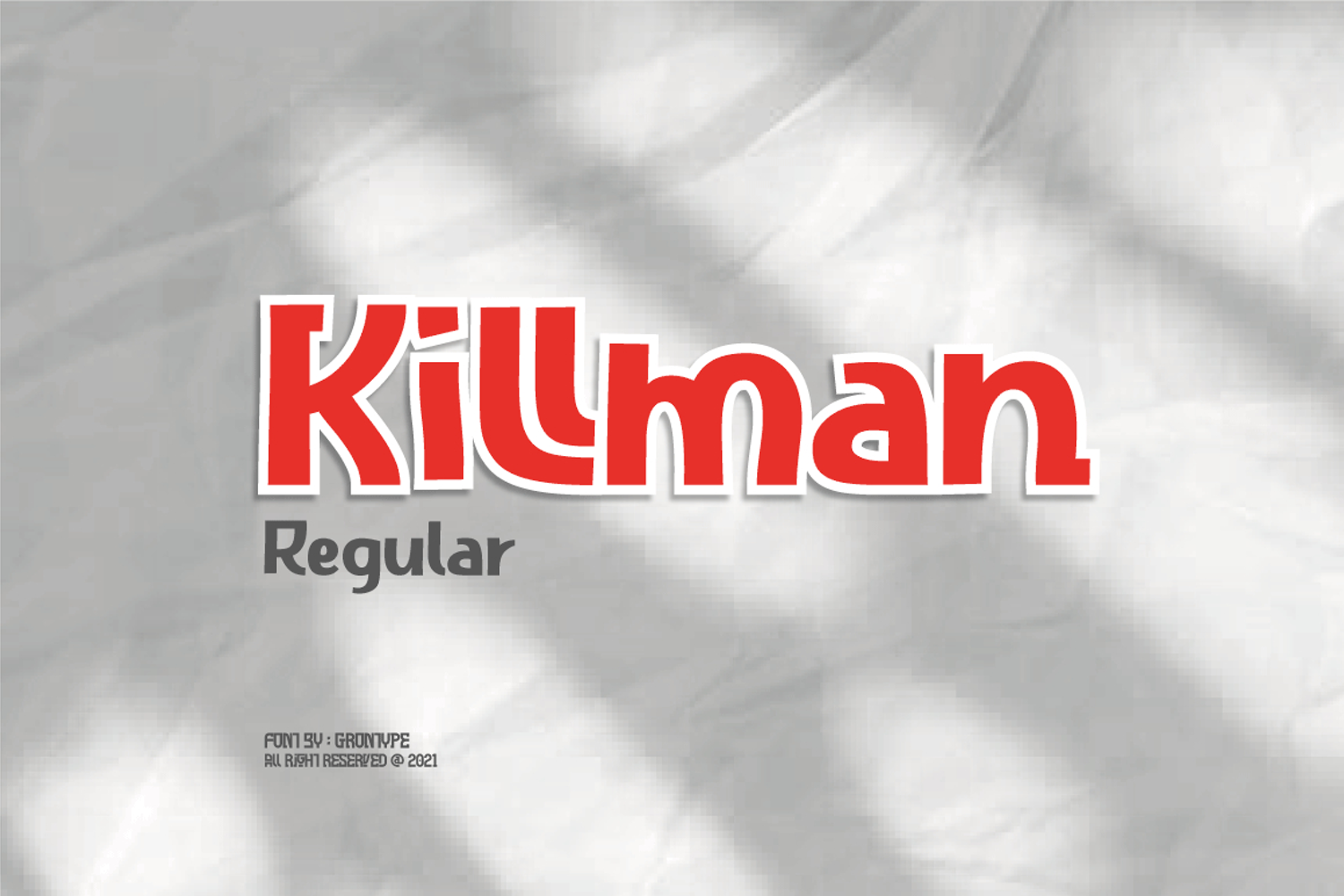
Killman Regular
Killman is a nice, neat and playful Font that is very useful for making Headline header or unique quotes or making flyer titles, even good for making company logo taglines. This font is made by adding some useful ligatures to create various font variations